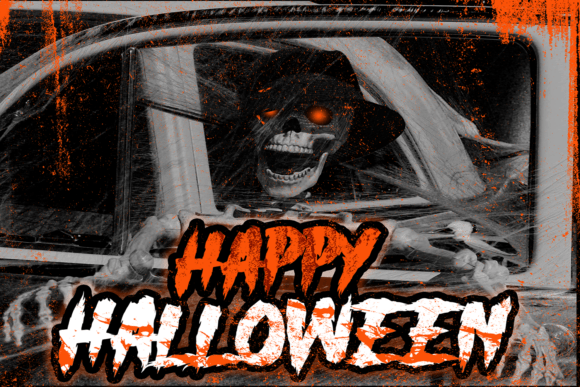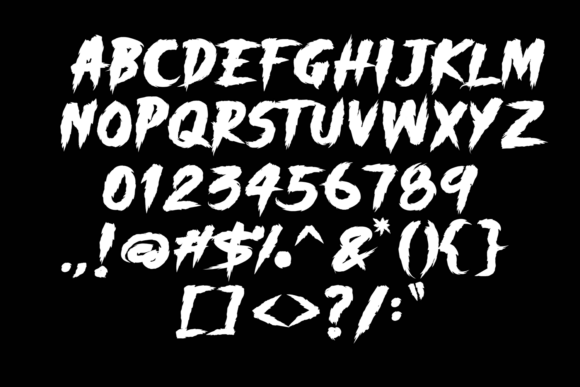
The Perfect Storm of Creativity
Remember the moment when you stumbled upon the perfect font, and your design just clicked? For many creatives, that moment is a rush of excitement and a dash of chaos. It’s the spark that sets your imagination ablaze, and you can’t wait to see your idea come to life.
Enter Chaos Font, a bold brush typeface that embodies the essence of edgy creativity. With its rugged edges and expressive strokes, Chaos Font is the perfect tool for designers who want to make a statement. From grunge posters to horror titles, this font is the ultimate companion for those who dare to be different.
Whether you’re a seasoned designer or just starting out, Chaos Font is a valuable addition to your toolkit. Its hand-drawn texture gives your message power and movement, making it a standout in any design project.
Key Features of Chaos Font
- Font Family: Chaos Font is a unique, hand-drawn font family designed to evoke a sense of chaos and disorder. It consists of multiple font styles, including bold, italic, and regular.
- Unique Characteristics: Chaos Font features a unique, hand-drawn design with irregular letterforms, giving it a distinctive and eye-catching appearance. The font also includes a range of swashes and flourishes, adding to its chaotic and unpredictable feel.
Designer Review: Chaos Font
Overall, I’d say Chaos Font is a decent choice for designers who want a bold and attention-grabbing font. Here are some things that work well:
- ✨ The font’s chaotic and irregular design elements add a unique touch to any design project. It’s perfect for creating a sense of tension or energy.
- ✨ The font is highly customizable, allowing designers to adjust the weight, width, and other parameters to suit their needs.
- ✨ The font includes a wide range of languages, making it a great option for international designs.
- ⚠️ The font can be difficult to read at smaller sizes or in low-contrast designs. This may limit its use in certain contexts.
- ⚠️ The font’s irregular design elements can sometimes clash with other design elements, requiring more careful composition.
Overall, I’d give Chaos Font 3.5 out of 5 stars. While it’s a great choice for certain design projects, its limitations may make it less suitable for others. With some careful consideration and customization, however, it can be a powerful tool in a designer’s toolkit.
Chaos Font is perfect for:
- Creativity and art projects.
- Designing social media graphics.
- Creating unique and eye-catching typography.
Alternatives to Chaos Font
Pacifico is a beautiful, elegant script font that is perfect for adding a touch of sophistication to your designs. It’s ideal for use in headings, titles, and other text elements where you want to create a sense of luxury and refinement.
Compared to Chaos Font, Pacifico is more refined and less distressed. While Chaos Font has a rough, hand-drawn feel, Pacifico is smooth and polished. Use Pacifico when you want to create a high-end, elegant look.
Great Vibes is a modern, cursive font that is perfect for adding a sense of playfulness and energy to your designs. It’s ideal for use in headings, titles, and other text elements where you want to create a sense of fun and excitement.
Compared to Chaos Font, Great Vibes is more dynamic and less distressed. While Chaos Font has a rough, hand-drawn feel, Great Vibes is bouncy and energetic. Use Great Vibes when you want to create a fun, lively atmosphere.
Can I customize the Chaos Font to suit my specific design needs?
Yes, the Chaos Font is highly customizable, allowing you to adjust various parameters such as font weight, width, slant, and more. You can also use the font’s built-in features, such as ligatures and contextual alternates, to create unique and personalized typography. We provide a comprehensive user manual and documentation to help you get the most out of the Chaos Font’s customization options.